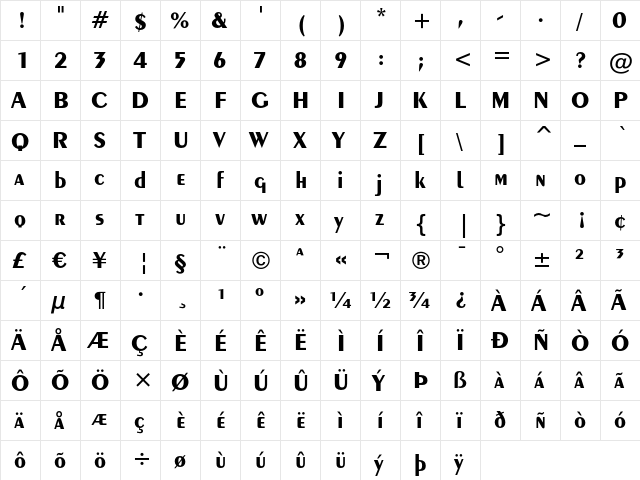
Exotic 350 Bold
Design Context for Exotic 350 Typeface
Exotic 350 takes a measured approach to typography — its balanced proportions and neutral character make it a reliable workhorse for both digital and print work. The heavy weight commands attention and anchors typographic hierarchies.